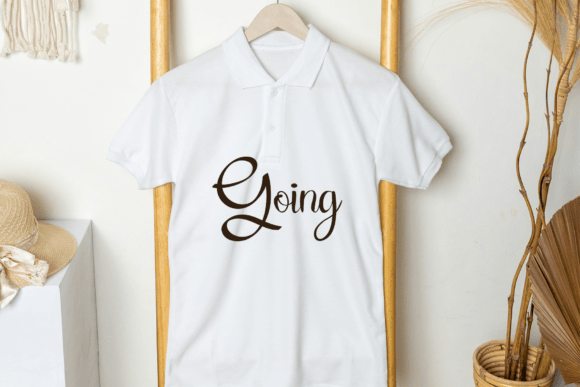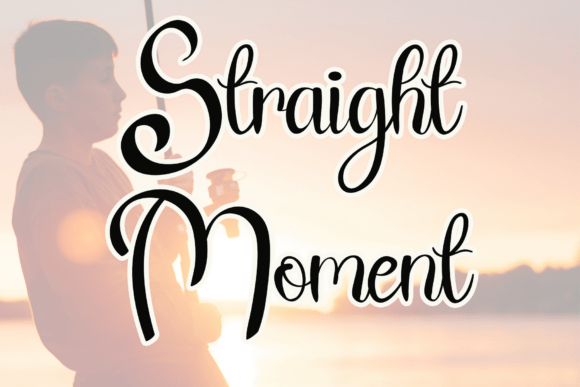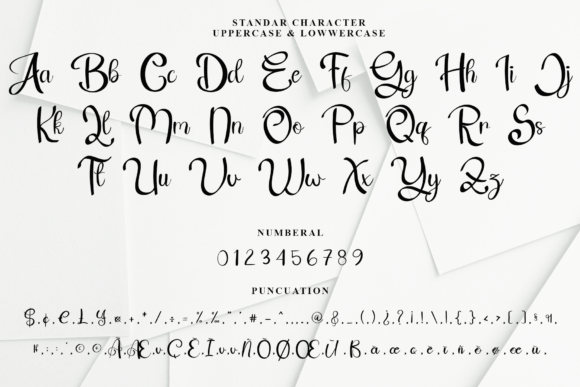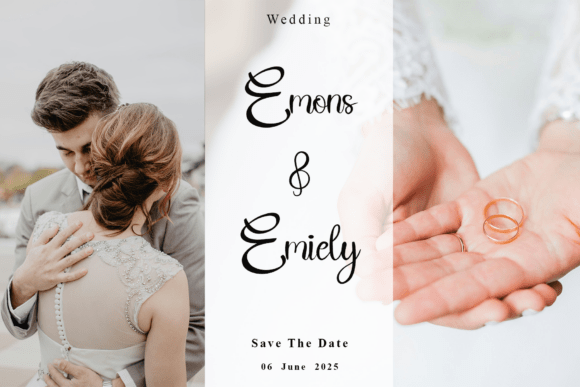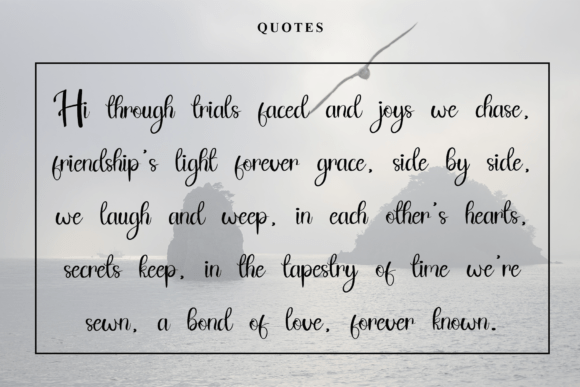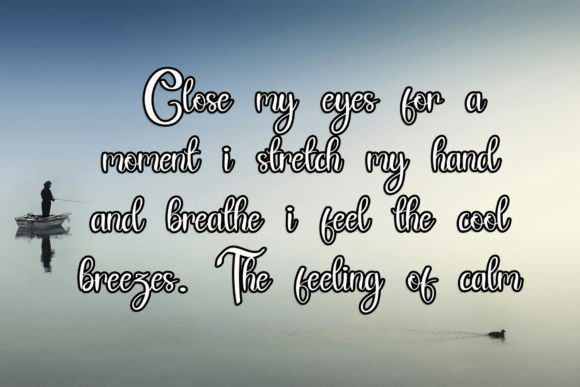
Introduction to Fishing Font
Have you ever stared at a blank canvas, feeling the creative juices flowing, and desperately searching for the perfect font to bring your project to life? I’m sure many designers can relate to this moment. As I was working on a new design project, I stumbled upon a font that caught my eye – the charming Fishing Font.
Its unique, handwritten style seemed to speak to me, and I knew I had to learn more about it. With its natural and playful feel, I couldn’t help but wonder what kind of creative projects it would be perfect for. From social media graphics to wedding invitations, the possibilities seemed endless.
Fishing Font
- High-quality, unique font design for creative projects
Honest Review: Fishing Font
What works well with the Fishing Font is its high quality design. The font is clean, modern, and versatile, making it suitable for a wide range of applications. I also appreciate the transparent background, which allows for easy layering and compositing.
- ✨ Great for creative projects, such as branding, packaging, and editorial design
- ✨ Versatile and modern design
One limitation I noticed is that the font is not suitable for small text sizes. The letters can become quite distorted and difficult to read at smaller sizes.
Overall, I’m impressed with the Fishing Font. It’s a high-quality design resource that can add a touch of elegance to any project. With its versatility and modern design, it’s definitely worth checking out.
Just be aware of the limitations, and use it wisely.
Tips for Getting the Most Out of Fishing Font
Experiment with different font sizes and colors to create visually appealing designs. Use Fishing Font in combination with other design elements to add depth and interest to your projects.
Fishing Font is perfect for creative projects such as logos, brochures, and social media graphics. Its high-quality design makes it suitable for both personal and professional use.
Fishing Font is a high-quality design resource due to its clean and creative design, making it perfect for use in a variety of creative projects. The font is also designed to be highly legible, even at small sizes, ensuring that your designs look professional and polished.